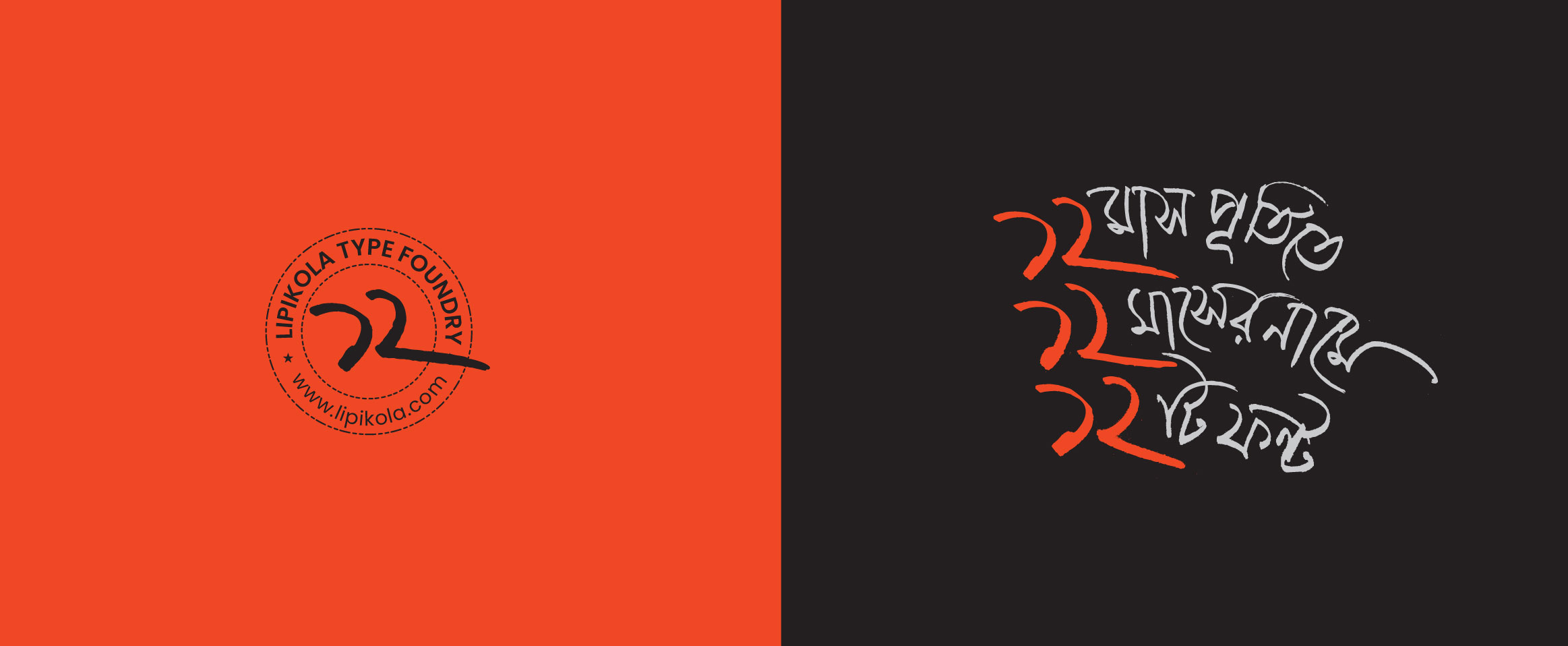
Call made for more text type fonts
Speakers including artists, researchers and academics on Saturday said that the book publishing suffers for lack of quality Bangla text types.
They also said that font designers are more focused on display types rather text types that are essential for book publishing
They made the remarks at an event titled ‘Lipikola TypeTalk: Discussing Bangla Typefaces’ at Bishwa Sahitya Kendra organised to mark the launch of 12 Bangladesh fonts by Lipikola on the first anniversary of the digital type foundry.
New Age deputy editor Abu Jar M Akkas, also editorial associate of the Bangla typography magazine Harapcarca, Dhaka University professor of graphic design Md Maksudur Rahman, visual artist Anisuzzaman Sohel, Jahangirnagar University assistant professor of Bangla department Mohammad Mamun Or Rashid and artist Azhar
Forhad spoke at the event, moderated by artist Silvia Nazneen.
Lipikola founder Kazi Jubair Mahmud delivered the welcome speech and officially launched the fonts named after 12 Bengali months.
Abu Jar M Akkas said that most of the type designers did not have adequate knowledge of the history of Bangla letterforms.
‘Most of the fonts are not fit for printing long, book-length materials,’ Akkas said. ‘Old hot metal types have not been preserved and they have not been digitally converted.’
Anisuzzaman Sohel said many fonts did not maintain proper shape of the Bangla conjunct letters.